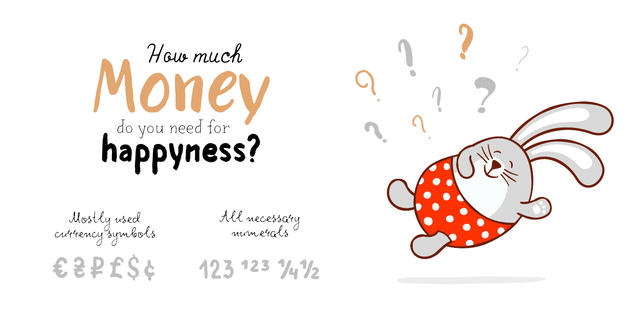
TT Rabbits D (1 font)
About TT Rabbits DTT Rabbits is a super emotional hand-written fontfamily that unites 10 different fonts. We’ve united these fonts with one common theme — childhood. Use these fonts to create any products for kids — children’s books layouts, mobile applications for children, as well as nursery interior design. We’ve given each rabbit a unique name. The names are arranged as the first 10 letters of the Latin alphabet: A — April, B — Bro, C — Chilli, D — Dummy, E — Elf, F — Fatso, G — Goody, H — Hyper, I — Idol, J — Junior. Each rabbit has its own character, and you’ll definitely like TT Rabbits because of that. We’ve used an individual writing tool for every font. All the fonts were created on paper first and then digitized. Now, what’s your favorite rabbit? Typeface designed by Ivan Gladkikh in TypeType studio in 2016.
Features of font family TT Rabbits DThe hit of the decade:
Associations for font family TT Rabbits DTypeface personality and character:
dynamic, fresh, slovenly, unstable, tender, cheerful, sweet, frivolous, modern, emotional, liquid, dashing, agile, restless, berry, fruit, cartoonish, bright, delicious, funny, kind, naive, cute, Soft, handicraft, man-made, manual, home, cozy, family, eco-friendly, confidence, green, natural, warm, lamp, appetizing, healthy, playful, cool, alive, original, affable, distinctive, festive, juicy, ripe, craft brewed, glad, mischievous, spring, summer, home-made, pleasant, cutie, happy, nice, Artisanal, careless, quick, vernacular, freewheeling, forest